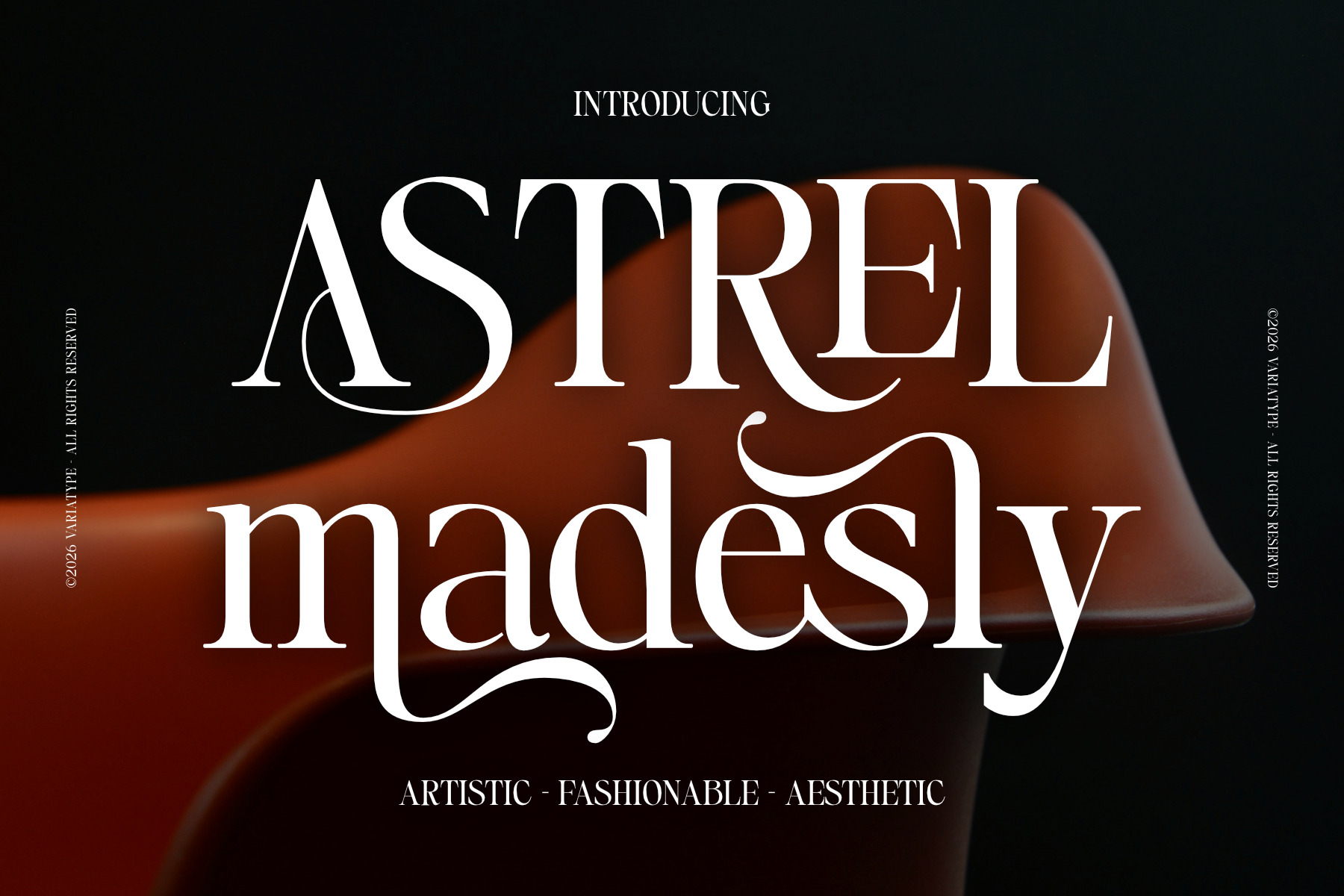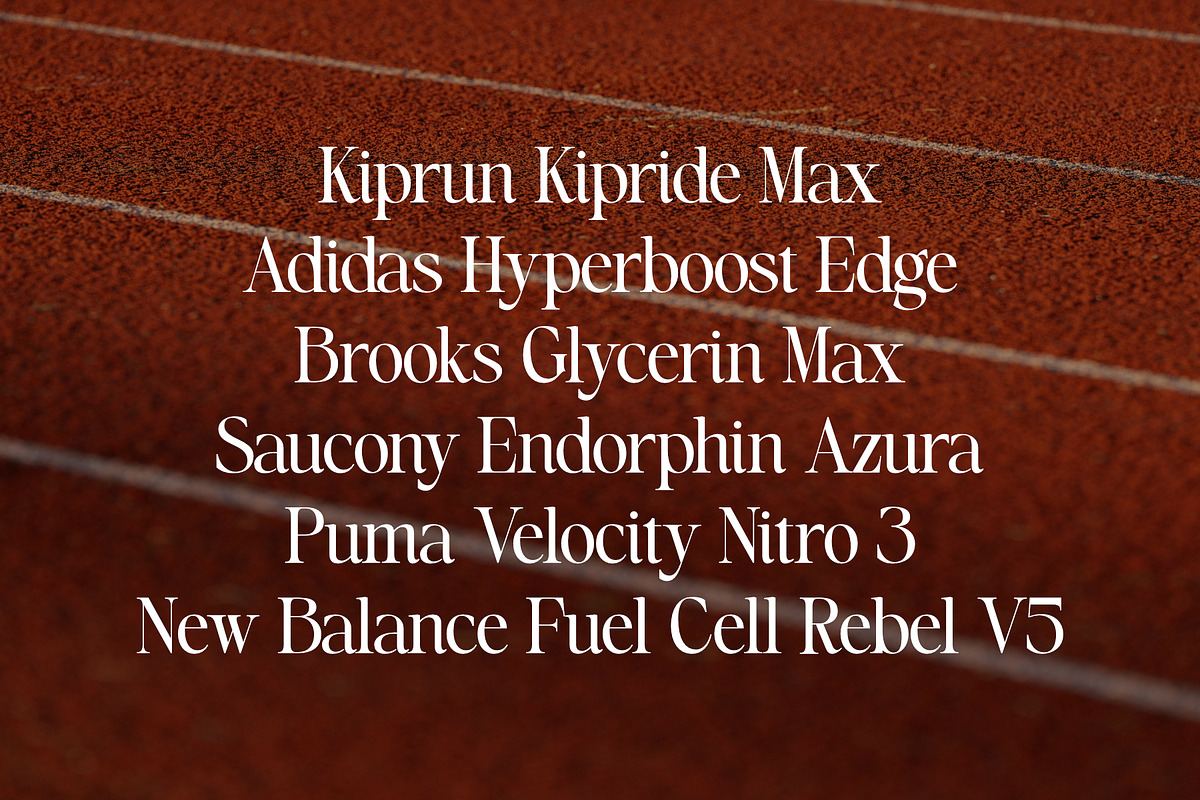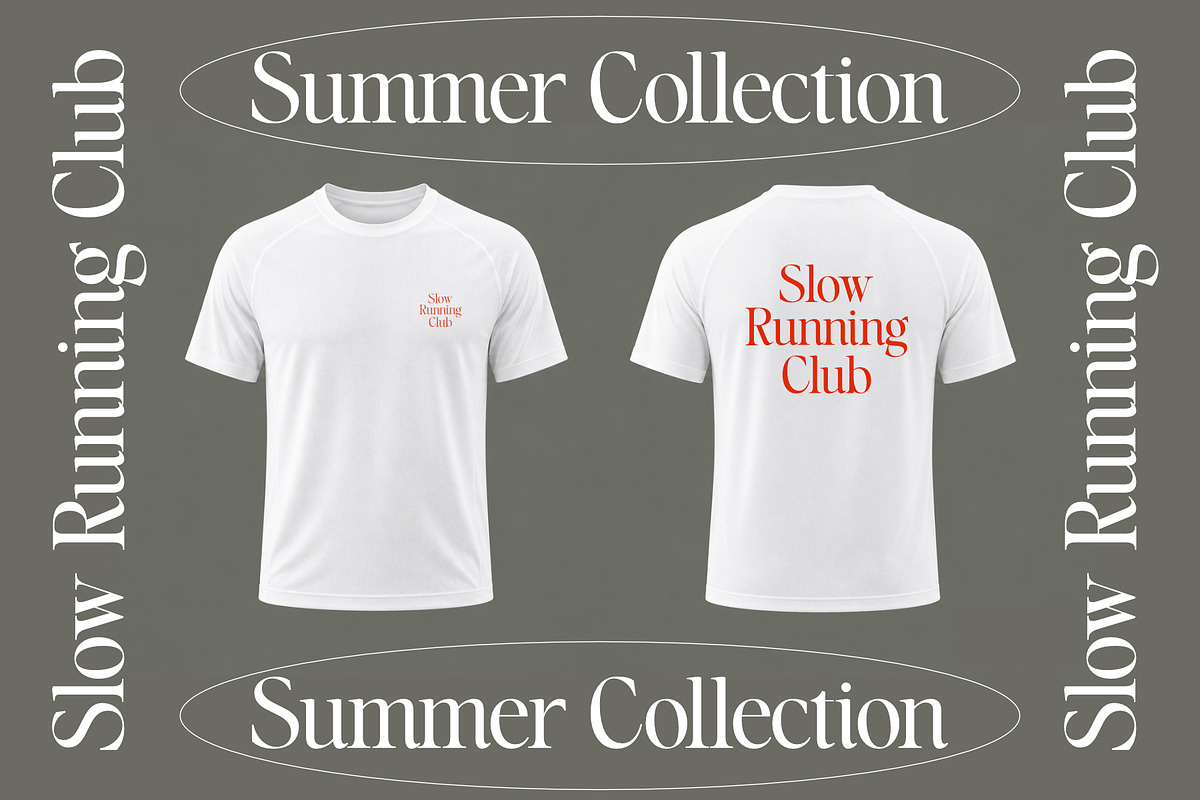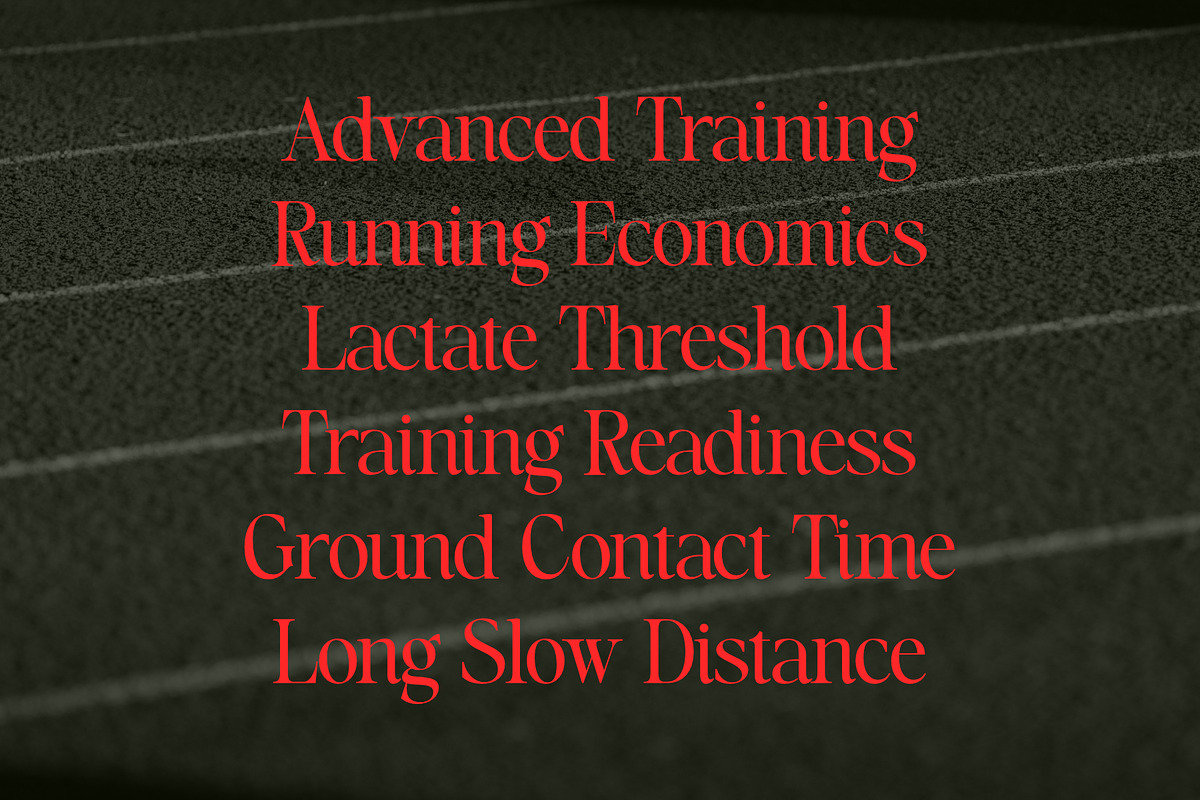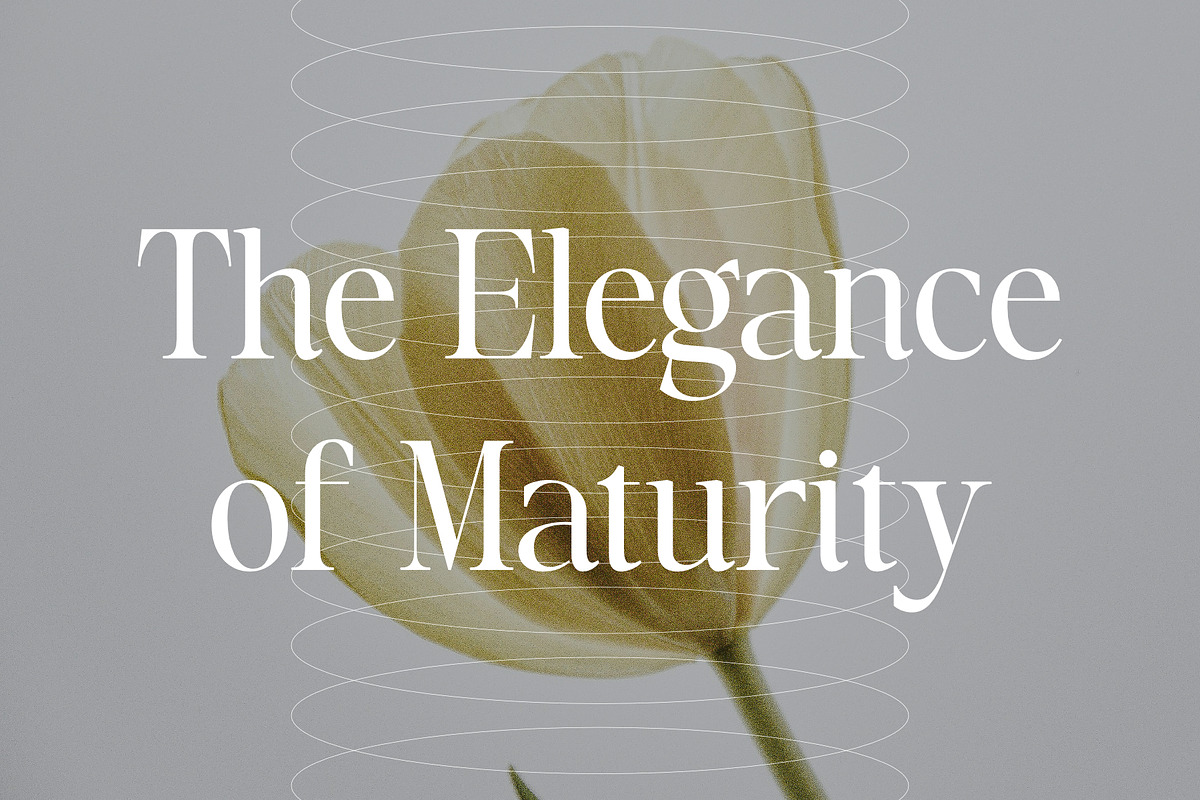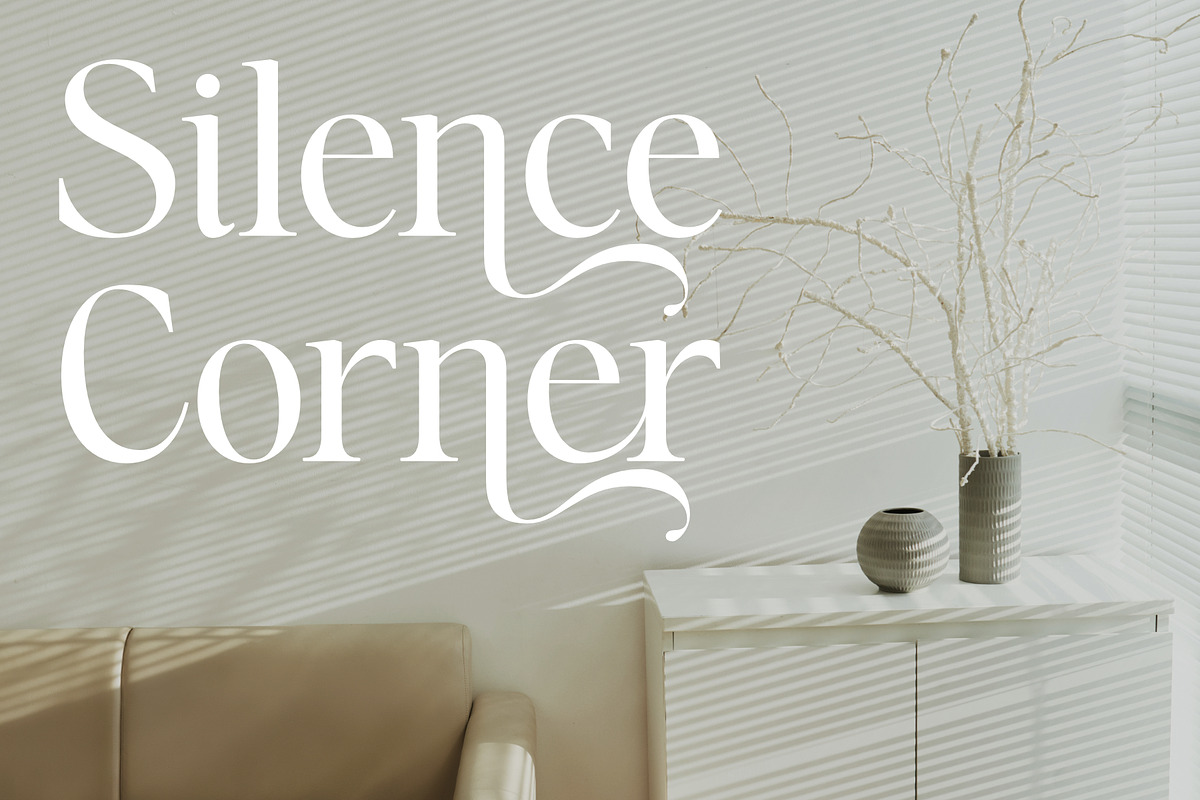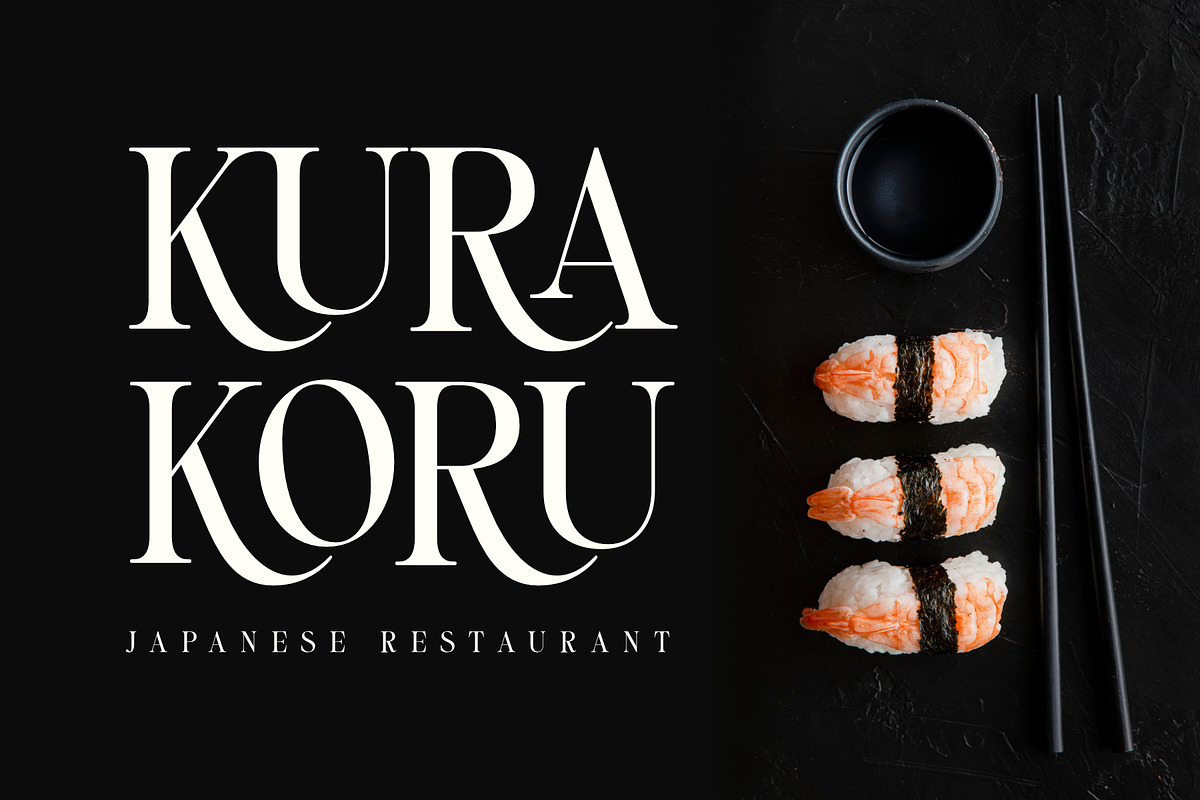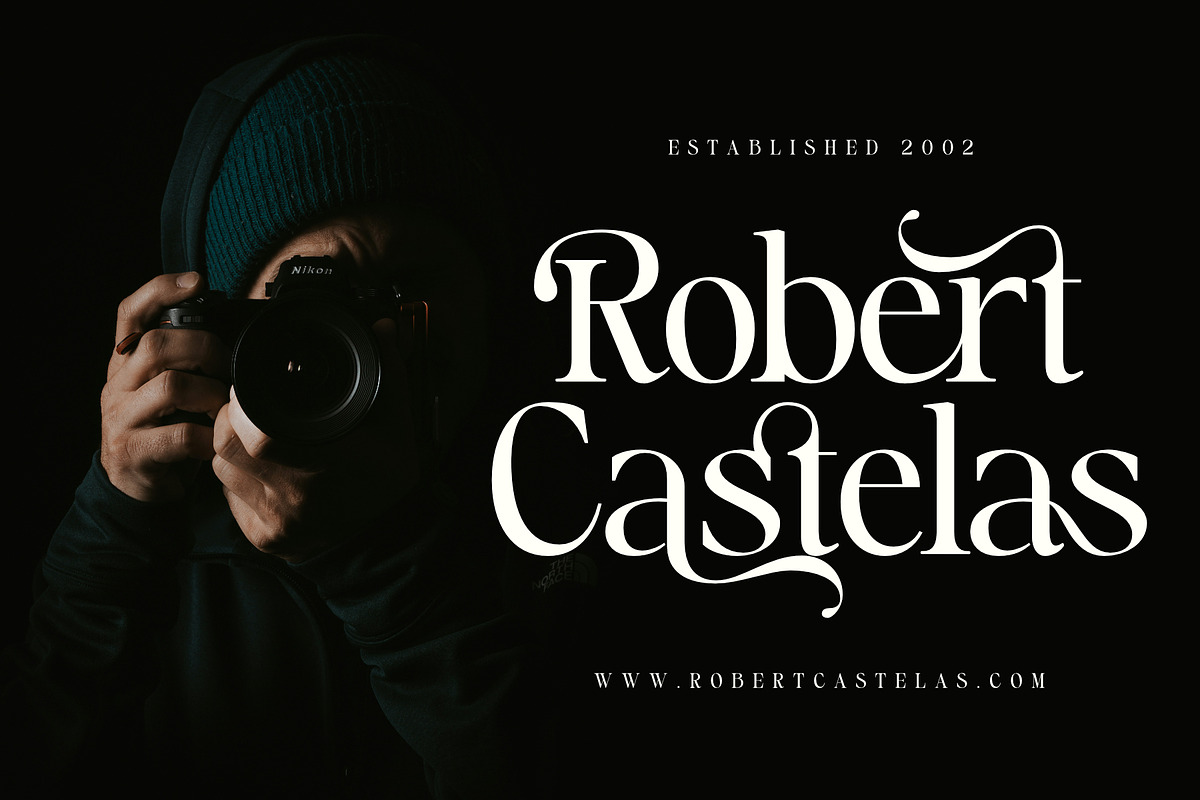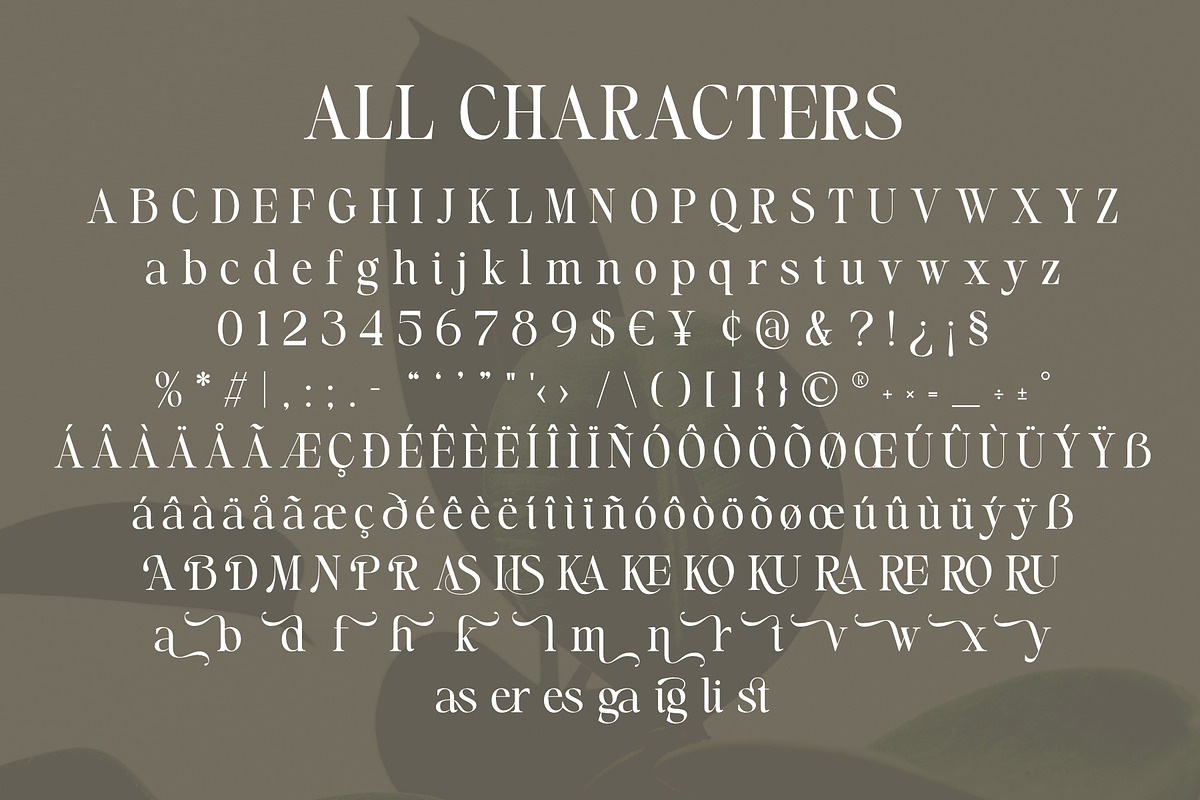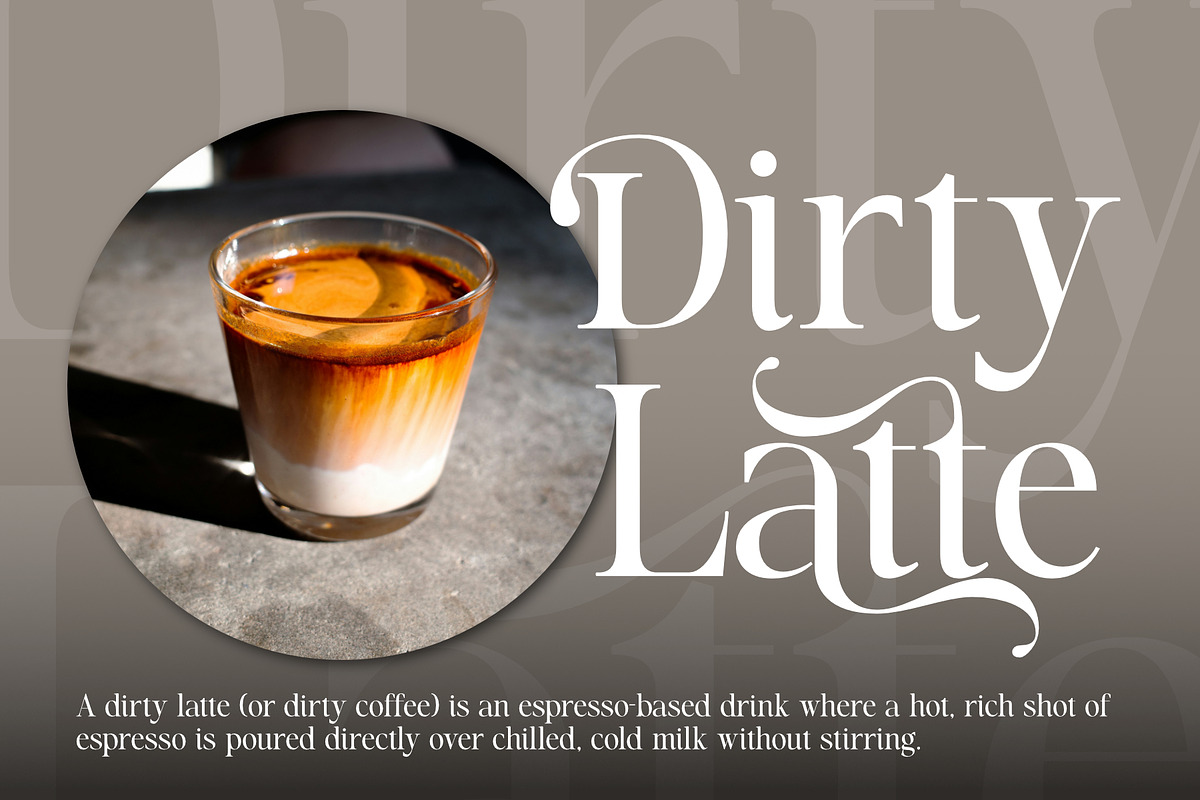
Astrel Madesly - Artistic Serif Font
Astrel Madesly is an artistic display serif that combines elegance with modern aesthetic charm, featuring beautifully crafted ligatures and stylish alternates designed to create luxurious and expressive typography effortlessly. With its graceful curves, refined contrast, and fashionable character, this typeface is perfect for luxury branding, editorial designs, beauty packaging, boutique logos, cafés, weddings, and sophisticated social media visuals. Every letter is carefully designed to bring a high-end and cinematic impression, making Astrel Madesly an ideal choice for creatives who want their designs to feel artistic, fashionable, and visually unforgettable.
FONT FEATURES
Additional Accents
66 Languages
Kerning